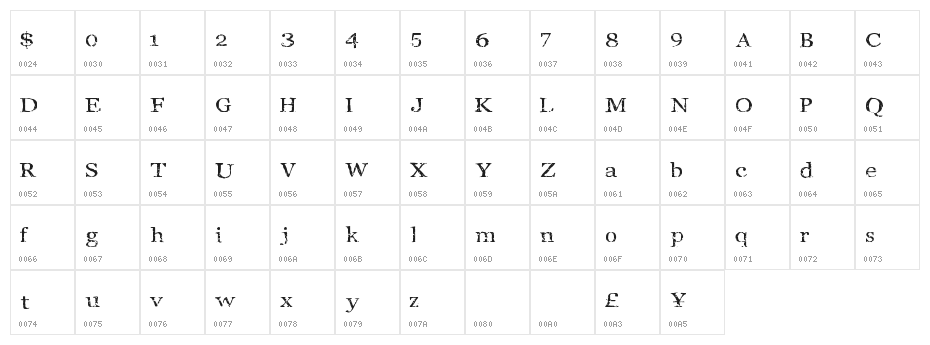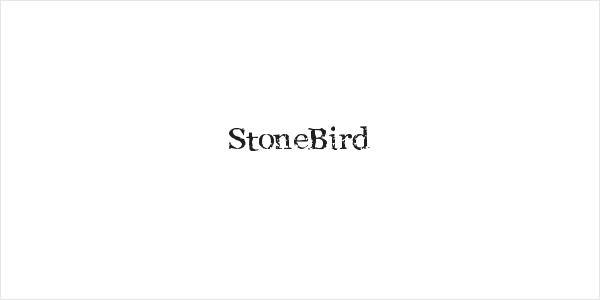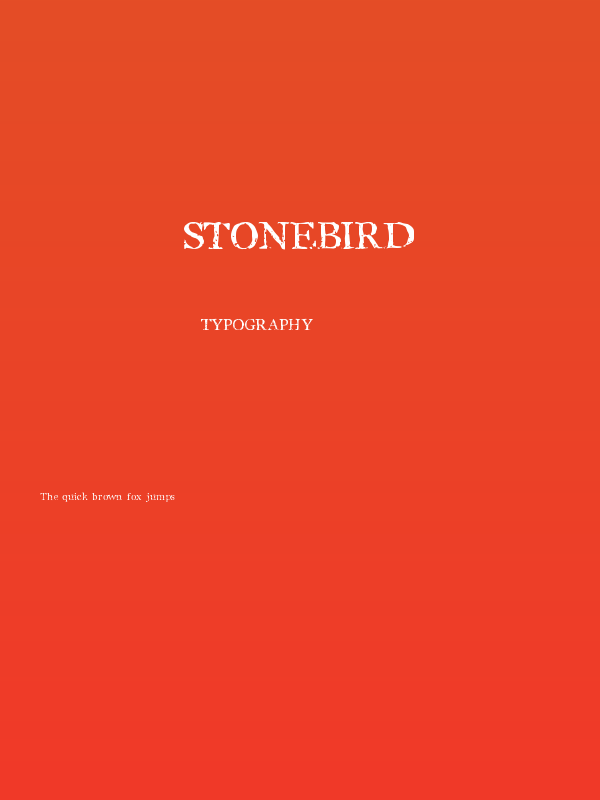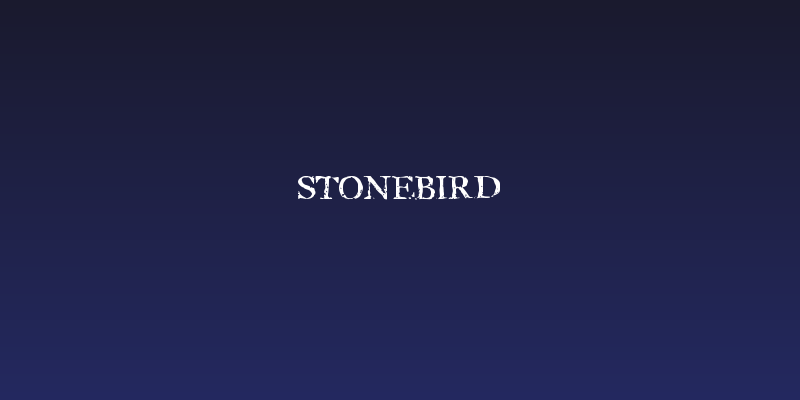
StoneBird Font
StoneBird Description
This font features a distressed, textured appearance, reminiscent of weathered stone or aged surfaces. The characters have a serif style, with each letter exhibiting a rough, uneven texture that adds a sense of depth and character. The uppercase and lowercase letters maintain a consistent style, with the texture providing a unique, organic feel. The numbers and special characters follow the same design, ensuring a cohesive look across all elements. This font is ideal for projects that require a rustic or vintage aesthetic, offering a bold and eye-catching appearance.
Overall StyleVintage
Proposed ProjectsIdeal for vintage posters, rustic branding, album covers, and artistic projects requiring a textured look.